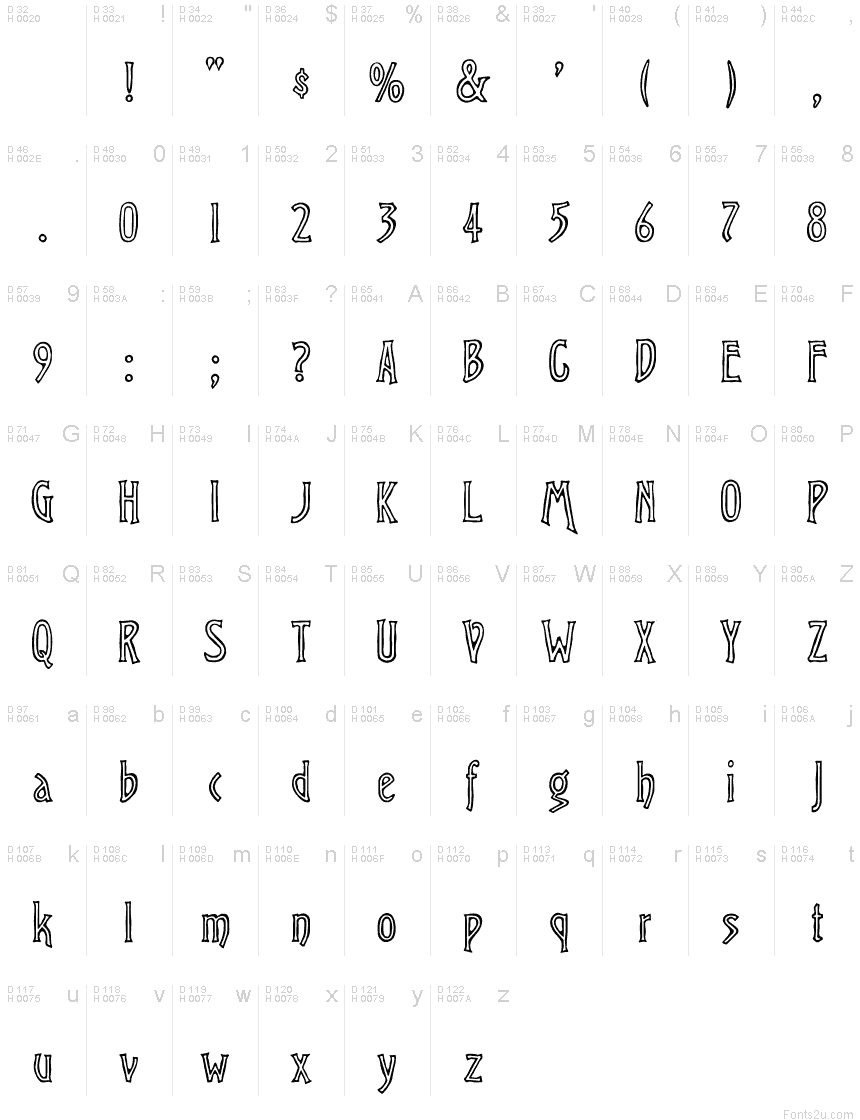
Chiseled Open
Chiseled Open font by Dixie's Delights is a free retro decorative display typeface. Its loose, hand-drawn outlines wobble just enough to feel playful, like letters carved into wood with a pocketknife, then traced in ink. The hollow interiors keep things airy, so even chunky words feel light and breezy rather than heavy or stiff. There’s a lively, almost storybook rhythm from letter to letter that pulls the eye across a headline.
Using Chiseled Open, titles instantly pick up a crafty, nostalgic charm that works beautifully for kids’ book covers, party invitations, poster art, zines, packaging, and handmade-style logos. The open strokes also invite color fills and textures for layered effects. Try pairing this free font with a simple rounded sans for body text and keep Chiseled Open large enough that its uneven contours read as a deliberate, whimsical style choice.